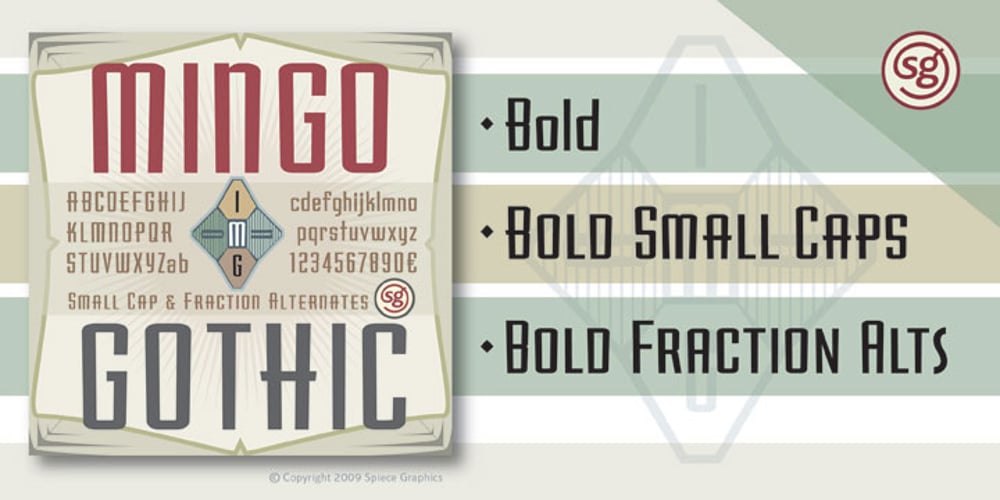
Mingo Gothic SG Font Family was designed by Jim Spiece and published by Spiece Graphics. Mingo Gothic SG contains 1 styles and family package options. This typeface appears to be straight out of a science fiction movie thriller. Mingo is a slightly condensed, somewhat vain gothic with thick vertical strokes proudly tapering downward. Capitals which are normally completely round are now square inside with curving outside corners. Lowercase letters carry the same design traits. And, in the capital A and H, crossbars extend on both sides helping give the face a pronounced retro look. Mingo Gothic is a close cousin to Raleigh Gothic and is an excellent choice for book covers and large display settings. Small caps, fractions, and alternate characters have also been developed for greater layout versatility. Mingo Gothic Bold is now available in the OpenType format. Some new characters have been added to this OpenType version as stylistic alternates, historical forms, small caps, oldstyle figures, ornaments, and f-ligatures. These advanced features work in current versions of Adobe Creative Suite InDesign, Creative Suite Illustrator, and Quark XPress. Check for OpenType advanced feature support in other applications as it gradually becomes available with upgrades.